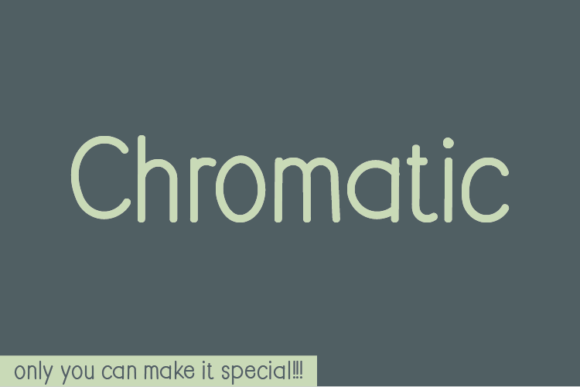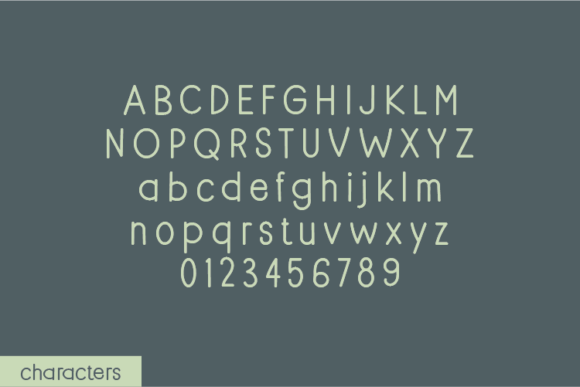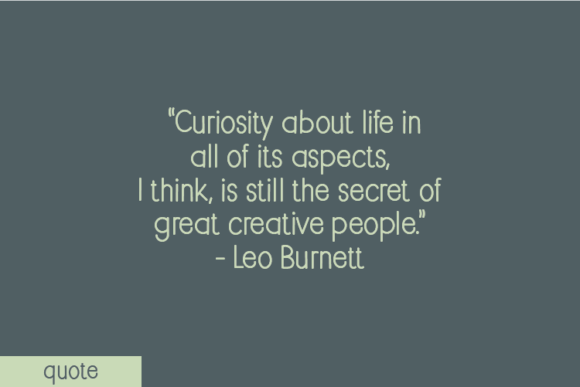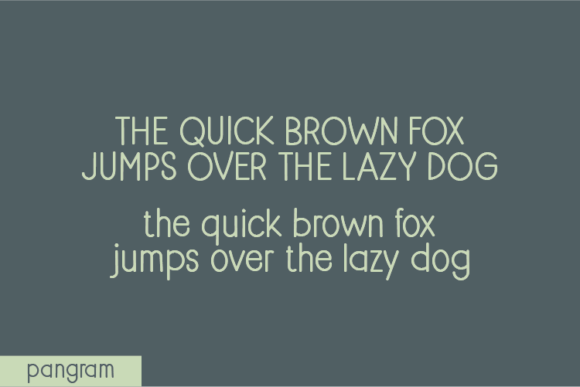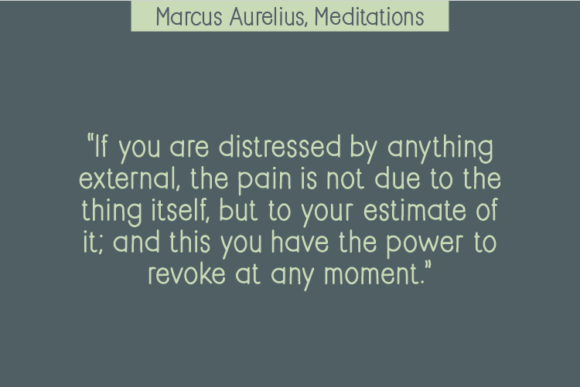
Chromatic Font
About Chromatic Font
The Chromatic Font Download is a natural handwritten typeface created to emphasize authenticity and originality. Unlike digital fonts that go through heavy refinements, Chromatic was designed without changing a single node in each character’s indentation. This approach preserves its raw structure and gives it an organic rhythm, making the typeface feel handcrafted and unique.
With its natural strokes and smooth flow, Chromatic delivers warmth, charm, and personality to every design. It is casual enough for creative projects yet clean enough for professional use. You can apply it to quotes, notes, apparel, product packaging, posters, social media graphics, or stationery. No matter the medium, Chromatic adds a personal handwritten touch that enhances your work.
Features of Chromatic Font
When you download the Chromatic Font, you get access to several features that make it a versatile design tool:
• Authentic handwritten style with a raw, organic flow
• Unique creation process without altering nodes
• Full character set including uppercase, lowercase, numbers, and punctuation
• Readable strokes that balance creativity with clarity
• Flexibility for both print and digital applications
Best Uses for Chromatic Font
The Chromatic Font Download adapts well to many different projects. For example, it is perfect for inspirational quotes on social media, giving your words a personal and artistic feel. It also works beautifully on t-shirts, hoodies, and tote bags, helping your merchandise look stylish and unique.
In addition, Chromatic enhances journals, planners, greeting cards, and invitations, where a handwritten style creates warmth and intimacy. It is also ideal for product packaging and labels, especially for handmade or eco-friendly brands. Furthermore, Chromatic supports logos and branding projects, giving them a distinctive identity. Finally, it shines in posters, flyers, and event promotions, where authenticity and attention-grabbing strokes are essential.
Why Choose Chromatic Font
Designers choose the Chromatic Font Download because it celebrates authenticity. By leaving every indentation untouched, it maintains the handcrafted beauty of real handwriting. As a result, it builds a stronger emotional connection with viewers compared to overly polished typefaces.
Unlike many handwritten fonts, Chromatic finds the right balance between creativity, readability, and originality. It is artistic enough for casual projects while remaining professional enough for branding and packaging. This versatility ensures that your work looks distinctive and approachable in every context.
The Chromatic Font Download is a natural handwritten typeface that blends authenticity with usability. With its handcrafted strokes, organic rhythm, and wide creative adaptability, it is perfect for quotes, apparel, packaging, posters, stationery, and more.